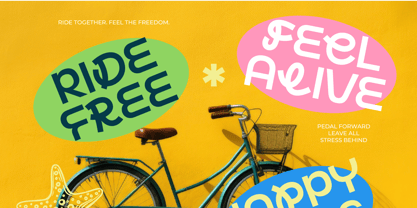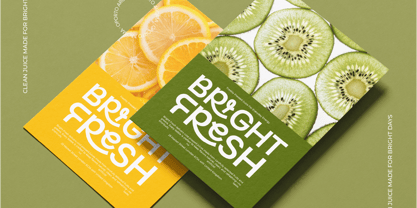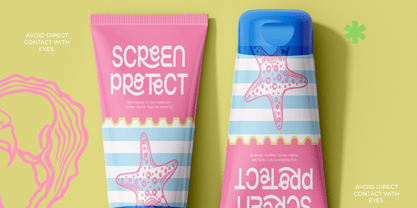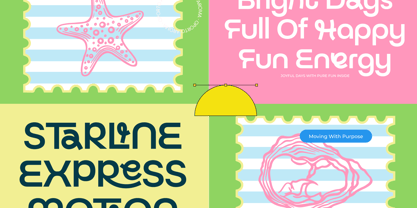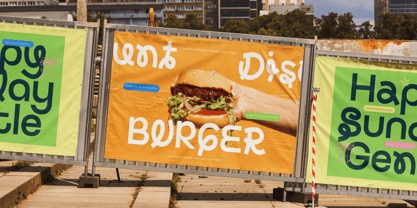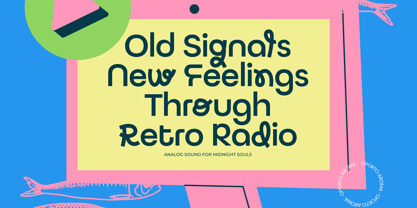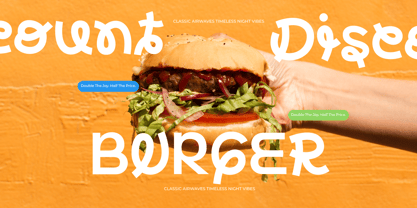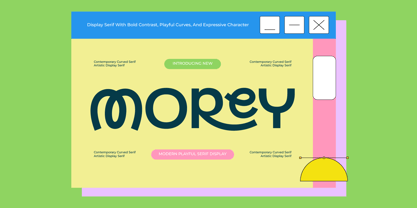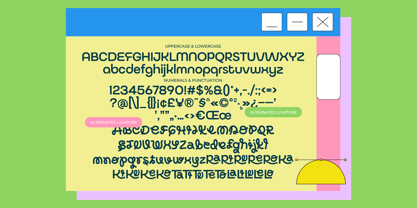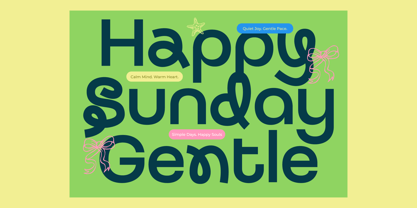
Morey
Meet Morey: The Playful Serif with Personality
Inject an instant burst of joy, retro vibes, and expressive energy into your designs with Morey—a contemporary curved serif display font crafted for bold creators. Morey beautifully balances a modern playful serif display style with heavy contrast, artistic loops, and an unmistakably expressive character.
Whether you are aiming for a classic vintage radio aesthetic or a bright, high-energy modern layout, Morey bends the rules of traditional serifs to give your words a rhythm of their own.
Key Features You'll Love
• Bold Contrast & Playful Curves: Thick, grounded stems meet fluid, whimsical loops to give your headlines a friendly yet artistic punch.
• Extensive Alternates & Ligatures: Bring ultimate variety to your text. Morey includes a full suite of standard uppercase and lowercase characters, numerals, punctuation, and a vast collection of stylized alternates and unique ligatures to customize every word.
• Expressive & Versatile: From casual cursive-like swirls to structured geometric flourishes, its characters let you dial the fun up or down depending on your project's soul.
Perfect For Everything That Needs to Stand Out
Morey thrives where typography takes center stage. Use it to breathe life into:
• Packaging & Branding: Give skincare lines, cosmetic labels, or retail products an inviting, organic feel.
• Food & Beverage Marketing: Create appetizing, punchy signage and menus for trendy cafes or fast-casual spots.
• Posters & Editorial Layouts: Capture a sunny, optimistic mood for event flyers, lookbooks, and promotional posters.
• Social Media Graphics: Stand out in crowded feeds with headlines that feel inherently joyful and curated.
Ready to transform your text? Stop blending in. Bring old signals and new feelings to your creative toolkit with Morey, and start designing with pure fun inside!